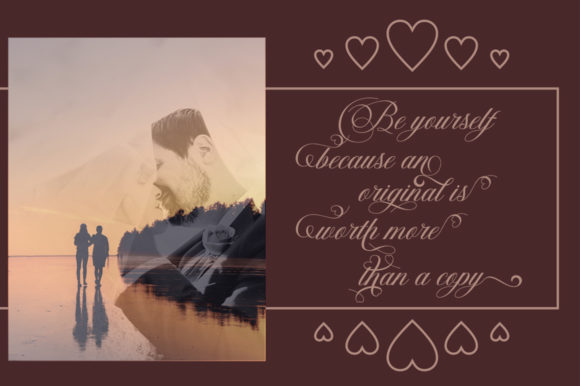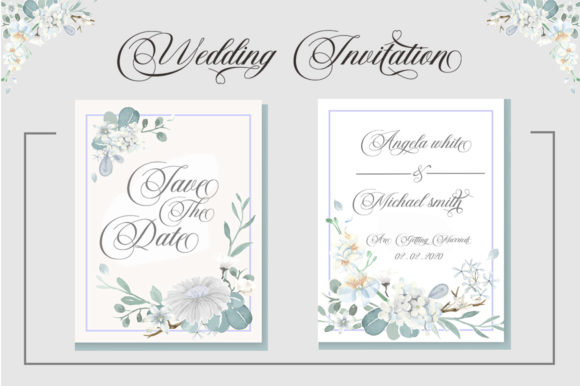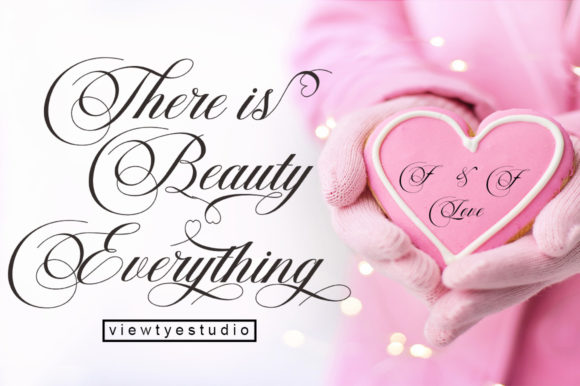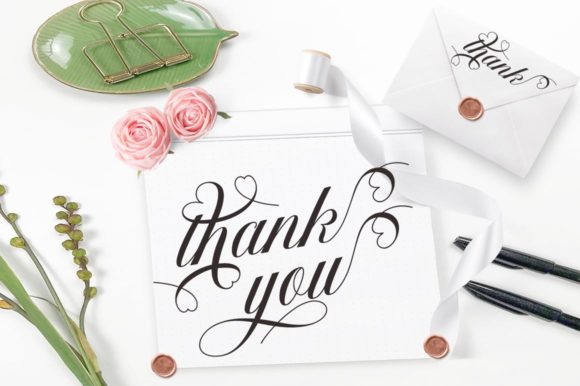
Adding a Touch of Romance to Your Designs
There’s nothing quite like the feeling of sitting at your desk, surrounded by scribbled notes, colorful pens, and a blank canvas waiting to be brought to life. As a designer, you know the rush of creativity that comes with envisioning a project and watching it take shape. But sometimes, that perfect font can make all the difference between a good design and a great one.
That’s where Faradila Font comes in – a sweet, handwritten font that’s designed to add a romantic touch to all your projects. With its beautiful swashes and alternative characters, this font is a must-have for any designer looking to add a little extra flair to their work. Whether you’re creating wedding invitations, social media graphics, or just a simple card for a loved one, Faradila Font is the perfect choice to make your designs truly special.
Faradila Font Key Features
- Font Family: Faradila Font is a unique, handwritten font that comes in two styles: Regular and Bold.
- Character Set: Faradila Font includes a comprehensive set of characters, including Latin, Cyrillic, and Greek alphabets, as well as punctuation marks and symbols.
- Unique Characteristics: Faradila Font features a distinctive, handwritten style with irregular strokes and subtle variations in letterform, giving it a personal and creative touch.
Faradila Font Review
Overall, I’m quite impressed with the Faradila Font. Here’s what works well: ✨
- Unique aesthetic: The Faradila Font has a distinct and refreshing look that’s perfect for designers looking for something unconventional.
- Clear typography: The font is well-designed for readability, making it ideal for body text and headings.
- Flexibility: Faradila comes in various weights and styles, giving designers plenty of options to suit their needs.
However, there are some limitations: ⚠️
- Limited language support: Faradila Font doesn’t cover a wide range of languages, which might be a concern for designers working on multilingual projects.
- No extensive font family: While the font has multiple weights and styles, it’s not a comprehensive font family, which might limit its use in complex designs.
Overall, I’d say the Faradila Font is a great choice for designers who want a stylish and readable font for their projects. While it has its limitations, its unique aesthetic and flexibility make it a great addition to any designer’s toolkit.
Faradila Font is commonly used in:
– Creative projects, such as graphic design, photography, and videography.
– Branding and marketing materials, such as logos and business cards.
– Digital publications, such as e-books and magazines.
Tips for Getting the Most Out of Faradila Font
To get the most out of Faradila Font, follow these tips:
– Experiment with different font sizes and styles to achieve a unique look.
– Combine Faradila Font with other fonts and design elements to create a visually appealing design.
– Use Faradila Font consistently throughout your project to create a cohesive look.
Alternatives to Faradila Font
Great Vibes is a beautiful, elegant script font ideal for creating a sense of sophistication and refinement. It’s perfect for use in invitations, wedding stationery, and other high-end designs.
Compared to Faradila Font, Great Vibes has a more refined and luxurious feel, making it suitable for high-end branding and design projects.
Alex Brush is a handwritten font that exudes a sense of warmth and friendliness. It’s perfect for use in designs that require a personal touch, such as blog posts, social media graphics, and marketing materials.
Compared to Faradila Font, Alex Brush has a more casual and approachable feel, making it suitable for designs that require a more relaxed tone.
Carolyna Pro is a modern, elegant script font that’s perfect for creating a sense of luxury and sophistication. It’s ideal for use in high-end branding, packaging, and marketing materials.
Compared to Faradila Font, Carolyna Pro has a more refined and polished feel, making it suitable for designs that require a high level of sophistication.
Yes, the Faradila Font is designed to be compatible with right-to-left languages, including Arabic, Hebrew, and others. It includes the necessary OpenType features and language support to ensure proper rendering and formatting of text.